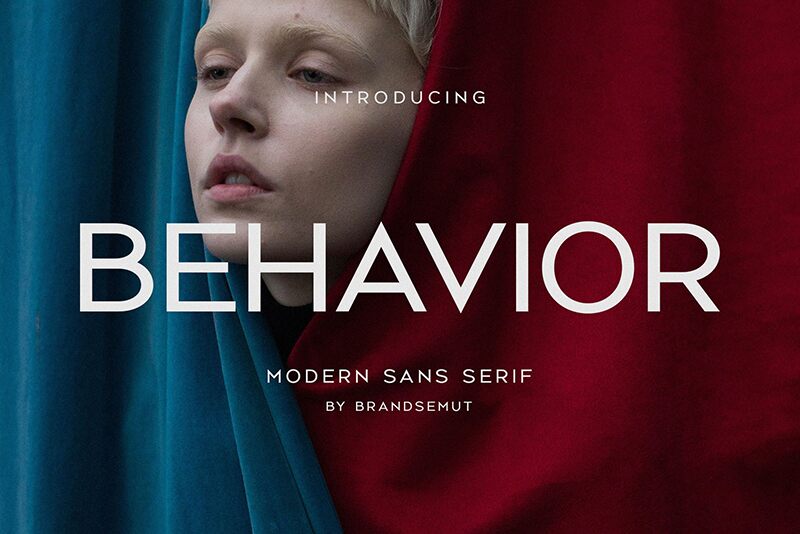
Behavior font by BrandSemut is a striking sans serif typeface that seamlessly combines modernity with clarity. Its bold characters convey strength and confidence, making it a standout choice for projects requiring high visibility. The typeface's expanded style enhances legibility, perfect for both print and digital media.
Ideal for branding, signage, and editorial design, Behavior font empowers your message without overwhelming the viewer. Its versatility allows it to fit diverse design contexts, effortlessly complementing a range of creative visions. Designers can access this free font download to elevate their projects with distinctive flair.
Whether used in headlines or body text, Behavior font promises to enhance visual appeal while maintaining readability. Download this free font today to add a touch of contemporary elegance to your work.